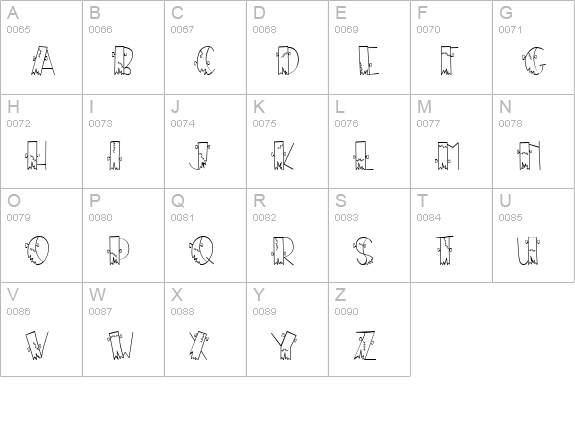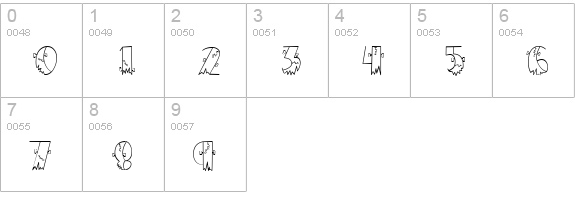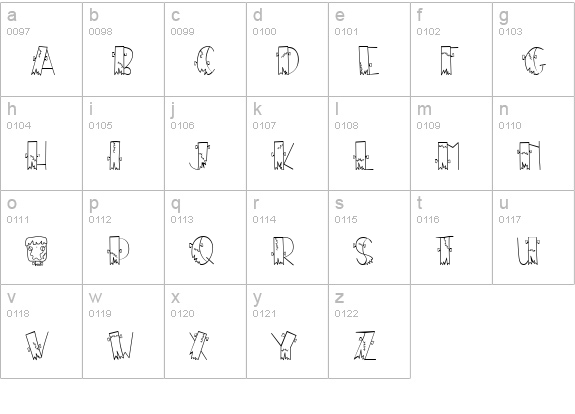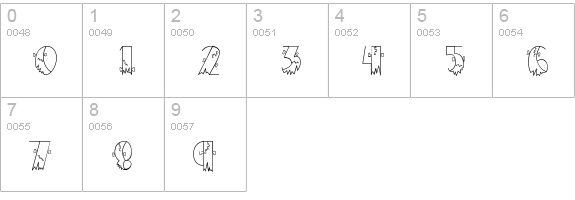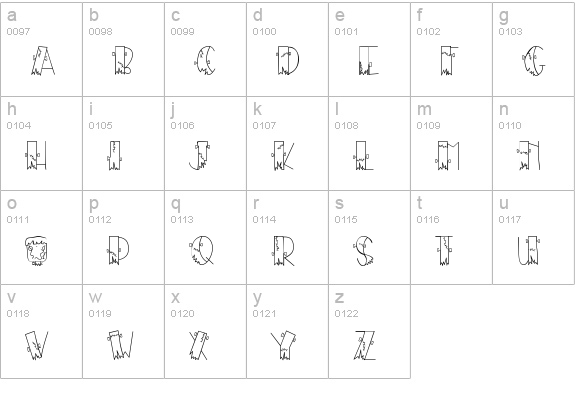
CK Frankenstein Font Details
The CK Frankenstein font is a striking display typeface that combines vintage charm with a modern twist. Its bold and angular letterforms evoke a sense of mystery and intrigue, making it perfect for headline designs, posters, and branding projects. With its gothic-inspired aesthetic, CK Frankenstein adds a touch of drama and sophistication to any creative work. What sets CK Frankenstein apart is that it is not only visually captivating but also completely free to download. You can easily access this unique font at FontsMarket.com, where you can unleash your creativity without any cost constraints. Don't miss out on the opportunity to add CK Frankenstein to your font collection and elevate your designs to a whole new level.